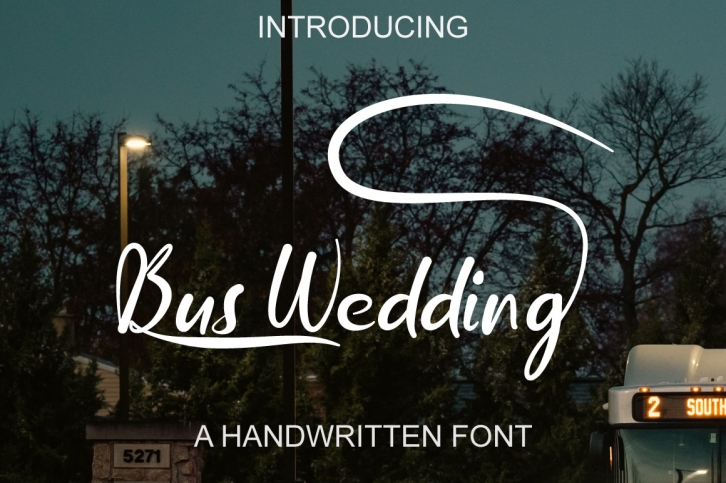
Bus Wedding is a handwritten font. This soft font will look great on any design idea. It will add a fun and romantic touch to any of your projects. Perfect for t-shirts, car decorations, award certificates, cup labels, and more.